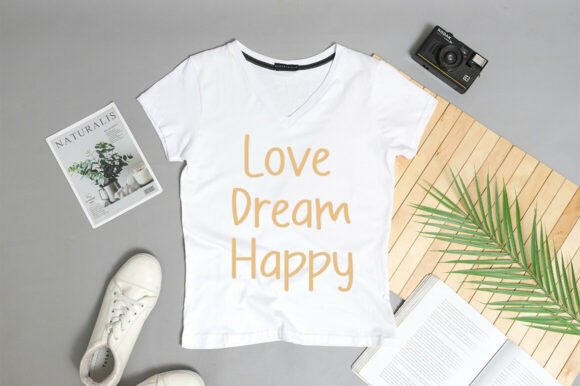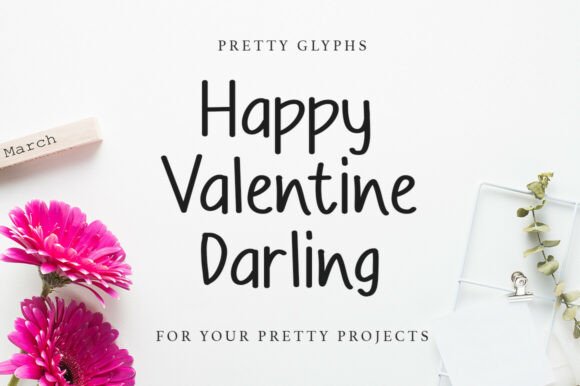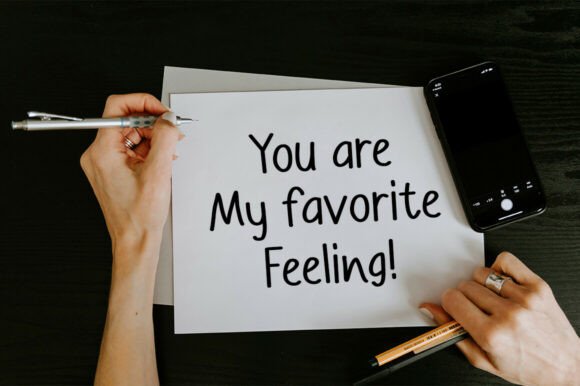
Unleashing Creativity with Cutella Notes Font
Are you a designer or crafter looking for a font that embodies bold, expressive style and raw creative energy? Look no further than the Cutella Notes Font, a handcrafted brush font that is sure to elevate your designs to new heights. Inspired by authentic brush lettering, this font is meticulously crafted with natural strokes and dynamic movement, making every design stand out with elevated sophistication.
The Inspiration Behind Cutella Notes Font
The Cutella Notes Font draws inspiration from the world of authentic brush lettering, where every stroke and movement is a testament to the artist’s skill and creativity. Each character in this font is carefully crafted to capture the essence of brush lettering, with natural strokes and dynamic movement that give your designs a sense of energy and spontaneity. Whether you’re working on a branding project or curating content for social media, this font is sure to add a touch of artistic ingenuity to your work.
A Harmonious Blend of Casual Freedom and Modern Aesthetics
One of the standout features of the Cutella Notes Font is its harmonious blend of casual freedom and modern aesthetics. This font is designed to be both playful and sophisticated, making it perfect for designers who want to add a touch of personality to their work. The casual freedom of the font is evident in its natural, handcrafted strokes, while its modern aesthetics are reflected in its clean lines and elegant curves. Whether you’re working on a project that requires a bold, statement-making font or a more subtle, understated look, the Cutella Notes Font is sure to deliver.
Crafted for Designers Seeking Strong Personality and Authentic Vibes
The Cutella Notes Font is specifically designed for designers who are looking for a font that embodies strong personality and authentic vibes. This font is perfect for designers who want to add a touch of creativity and originality to their work, and who are looking for a font that will help them stand out from the crowd. With its bold, expressive style and raw creative energy, the Cutella Notes Font is sure to make your designs more charismatic and memorable.
Elevate Your Designs with Cutella Notes Font
So how can you use the Cutella Notes Font to elevate your designs? Here are just a few ideas to get you started:
- Branding: Use the Cutella Notes Font to add a touch of personality to your brand’s logo or marketing materials. This font is perfect for brands that want to make a bold statement and stand out from the crowd.
- Social Media: Use the Cutella Notes Font to create eye-catching social media graphics that are sure to grab your followers’ attention. This font is perfect for creating engaging, shareable content that will help you build your brand and grow your online presence.
- Packaging: Use the Cutella Notes Font to add a touch of creativity to your product packaging. This font is perfect for brands that want to make a bold statement and stand out on store shelves.
Why Choose Cutella Notes Font?
So why should you choose the Cutella Notes Font for your next design project? Here are just a few reasons:
- Unique and Original: The Cutella Notes Font is a unique and original font that is sure to make your designs stand out from the crowd.
- High-Quality: This font is meticulously crafted with high-quality strokes and dynamic movement, making it perfect for use in a variety of design applications.
- Versatile: The Cutella Notes Font is a versatile font that can be used in a variety of design applications, from branding and marketing to social media and packaging.
In conclusion, the Cutella Notes Font is a powerful and creative font that is sure to elevate your designs to new heights. With its bold, expressive style and raw creative energy, this font is perfect for designers who want to add a touch of personality and authenticity to their work. Whether you’re working on a branding project, curating content for social media, or designing packaging, the Cutella Notes Font is sure to deliver. So why wait? Download the Cutella Notes Font today and experience the sheer power and raw creative energy of this amazing handcrafted brush font.